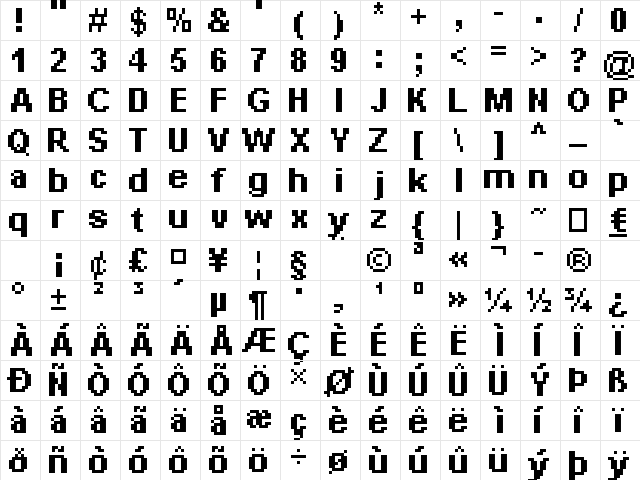
_px Arial 8pt bold Regular
Designer: horstkgrafix
Design Context for _px Arial 8pt bold
_px Arial 8pt bold is a composed and adaptable typeface that performs quietly and consistently across a wide range of design contexts. Its bold stroke weight gives it real presence on the page.